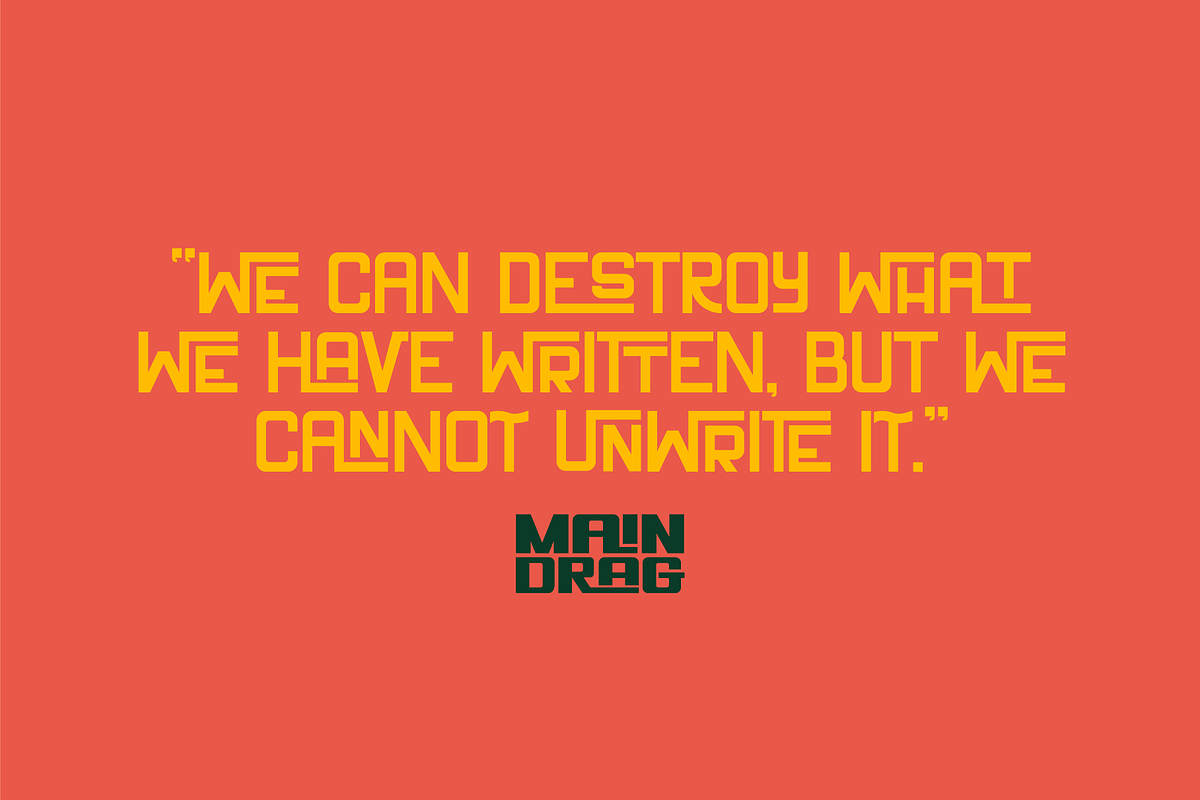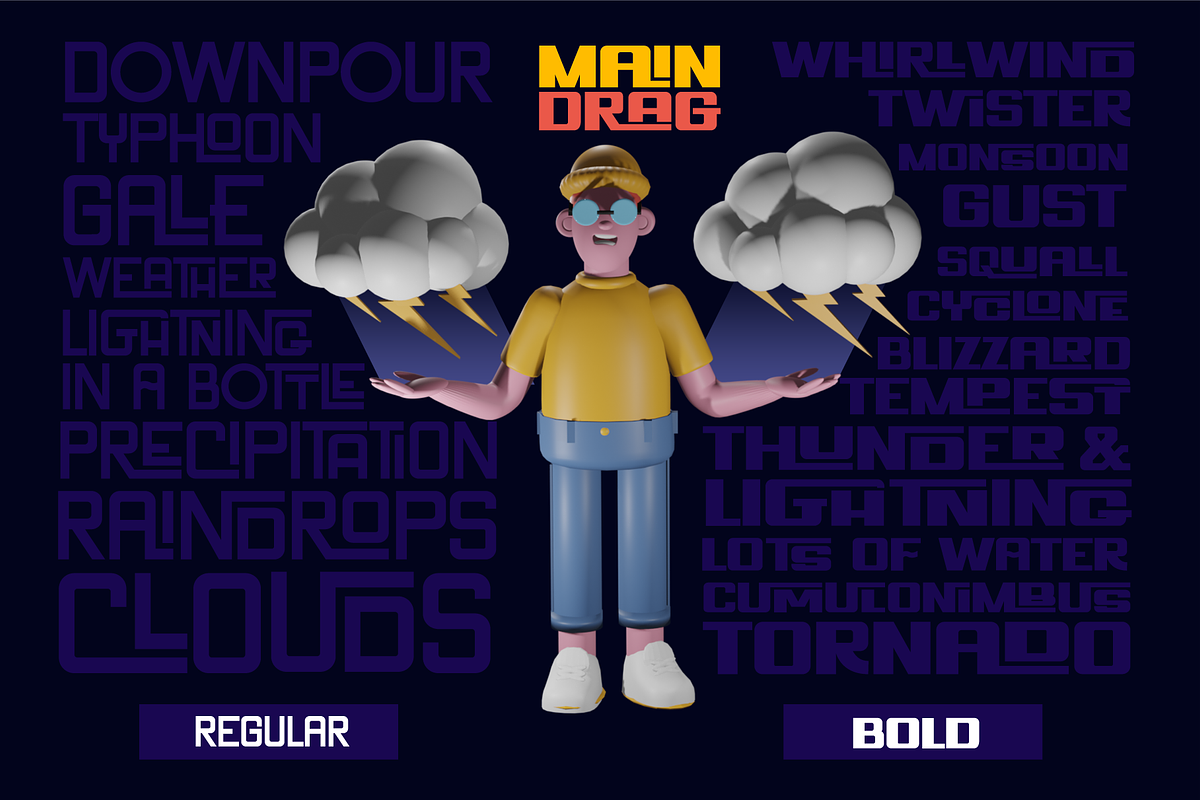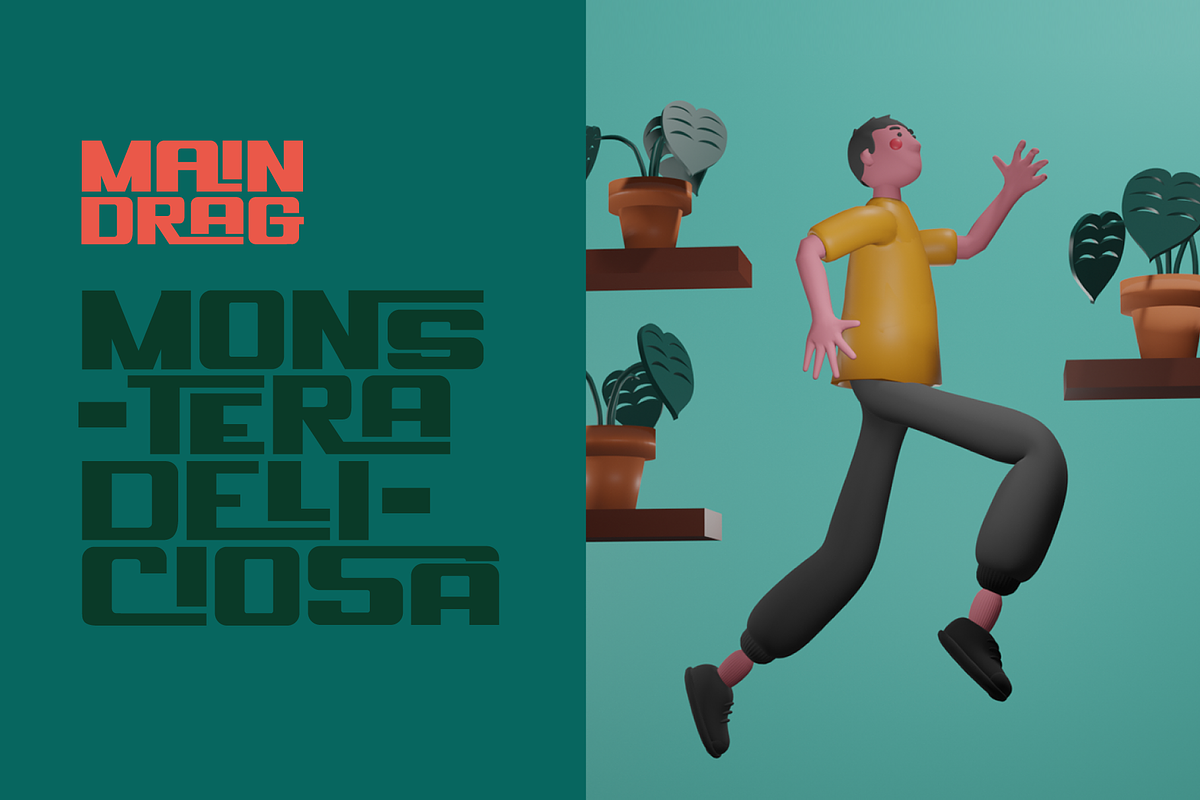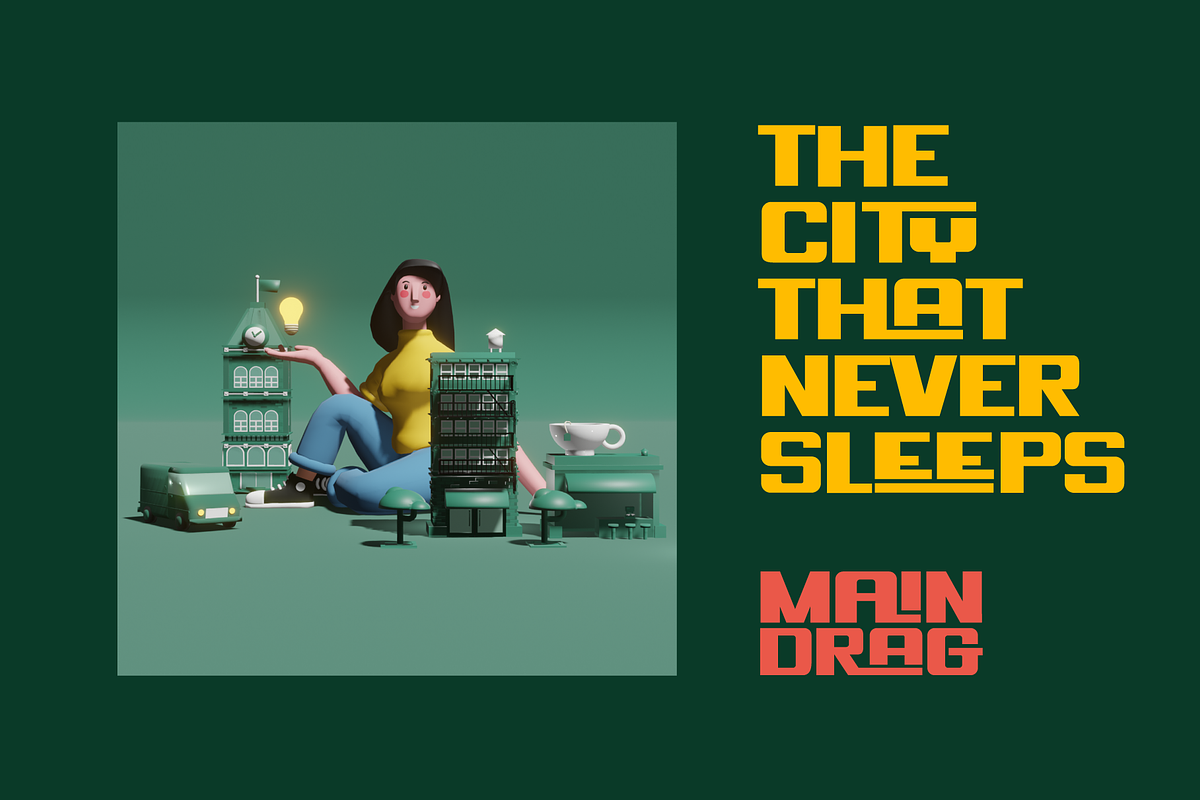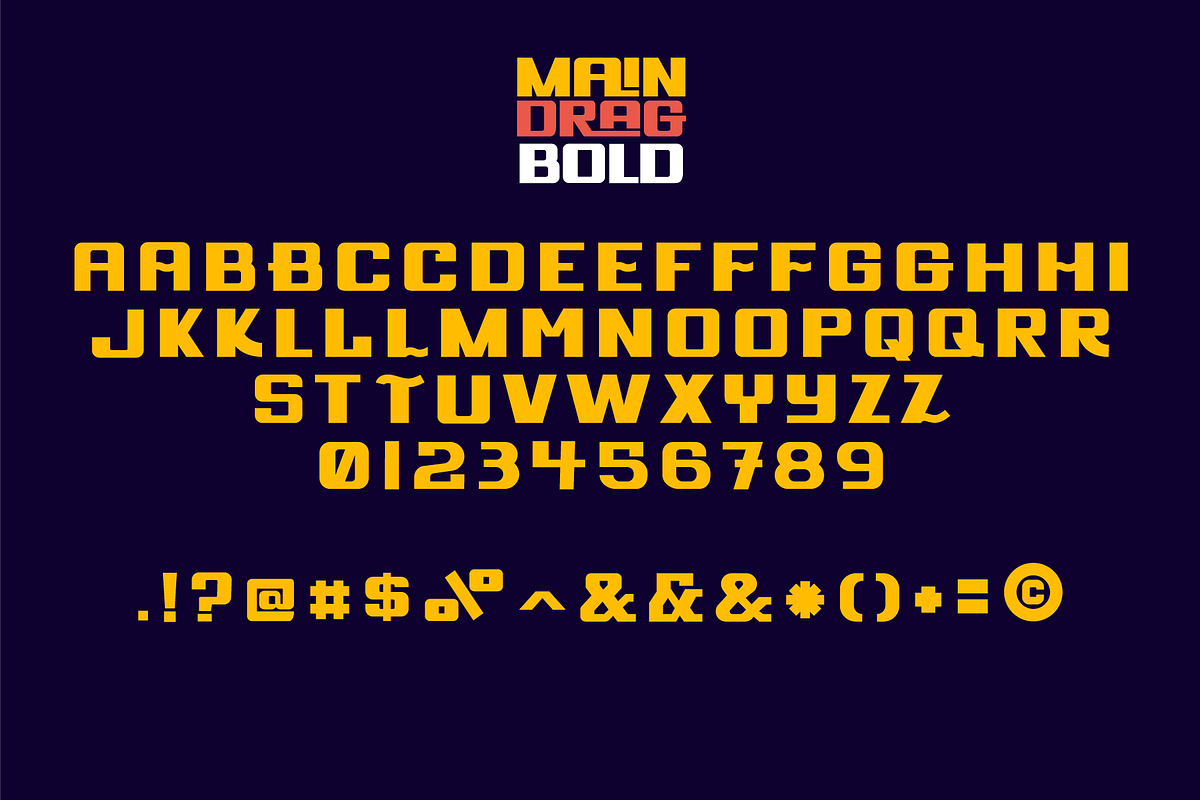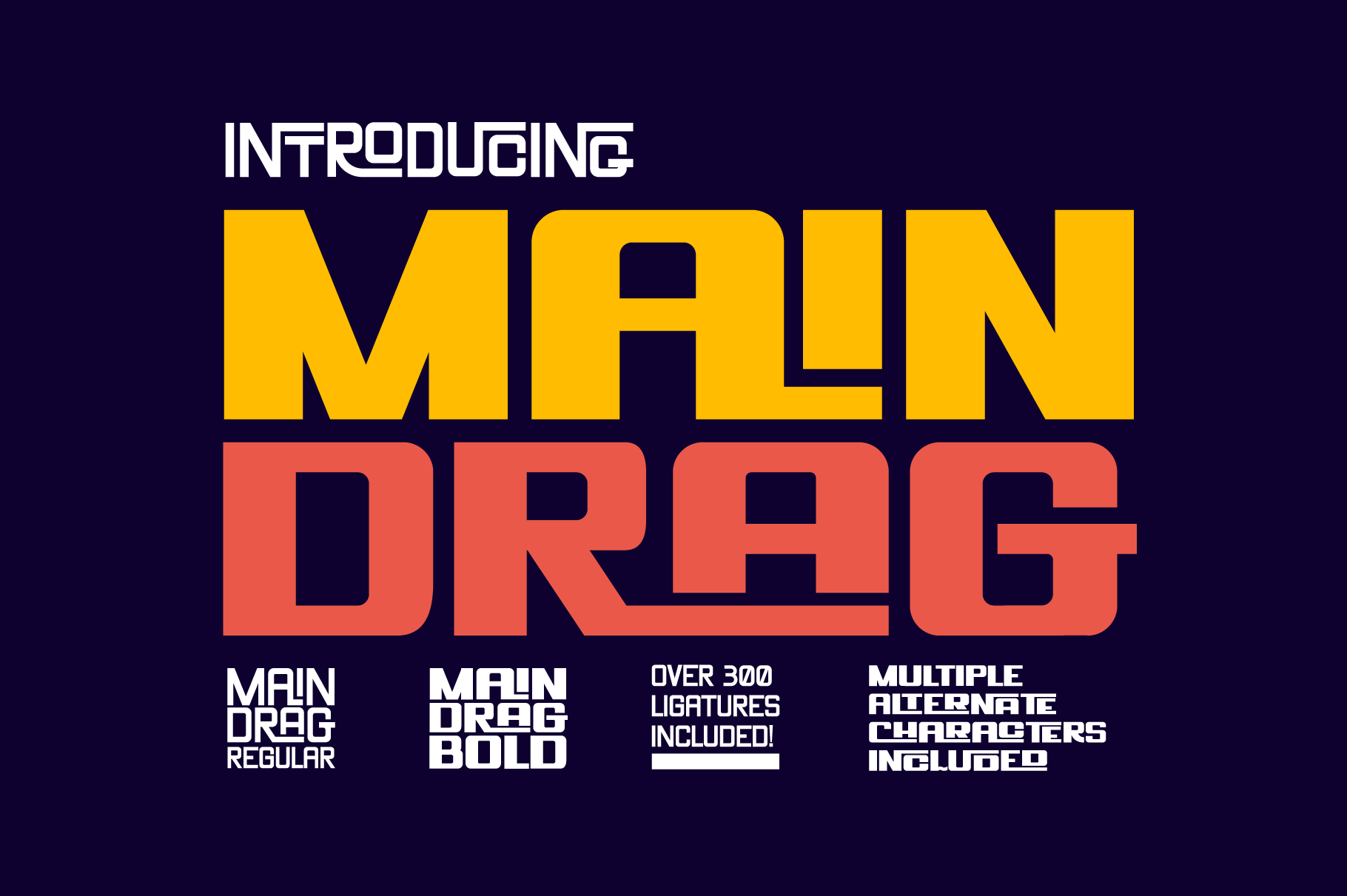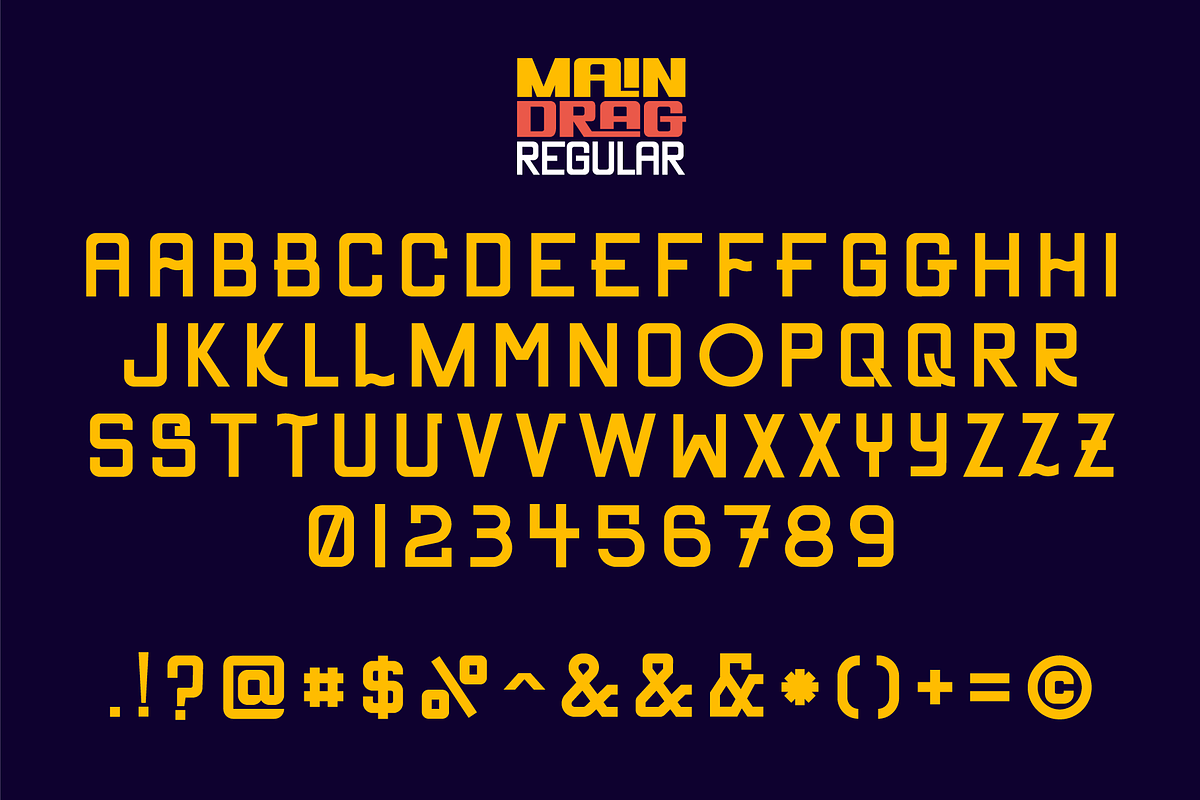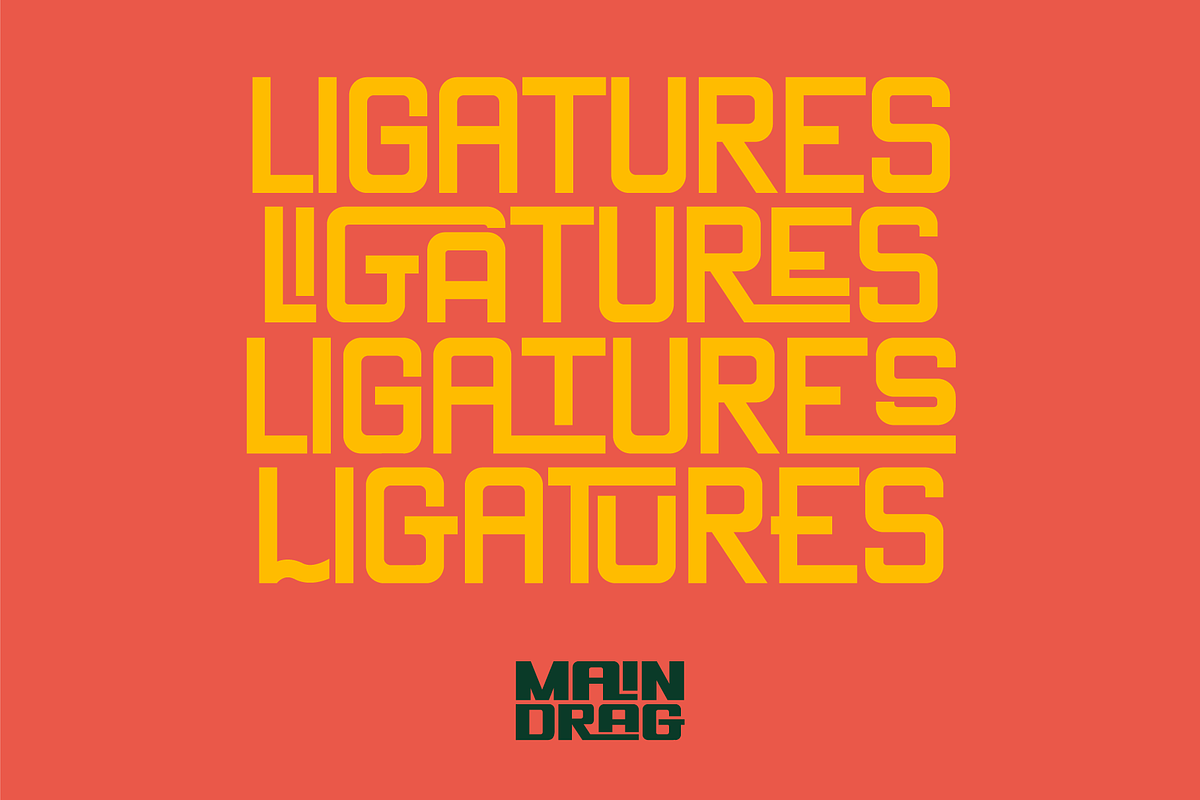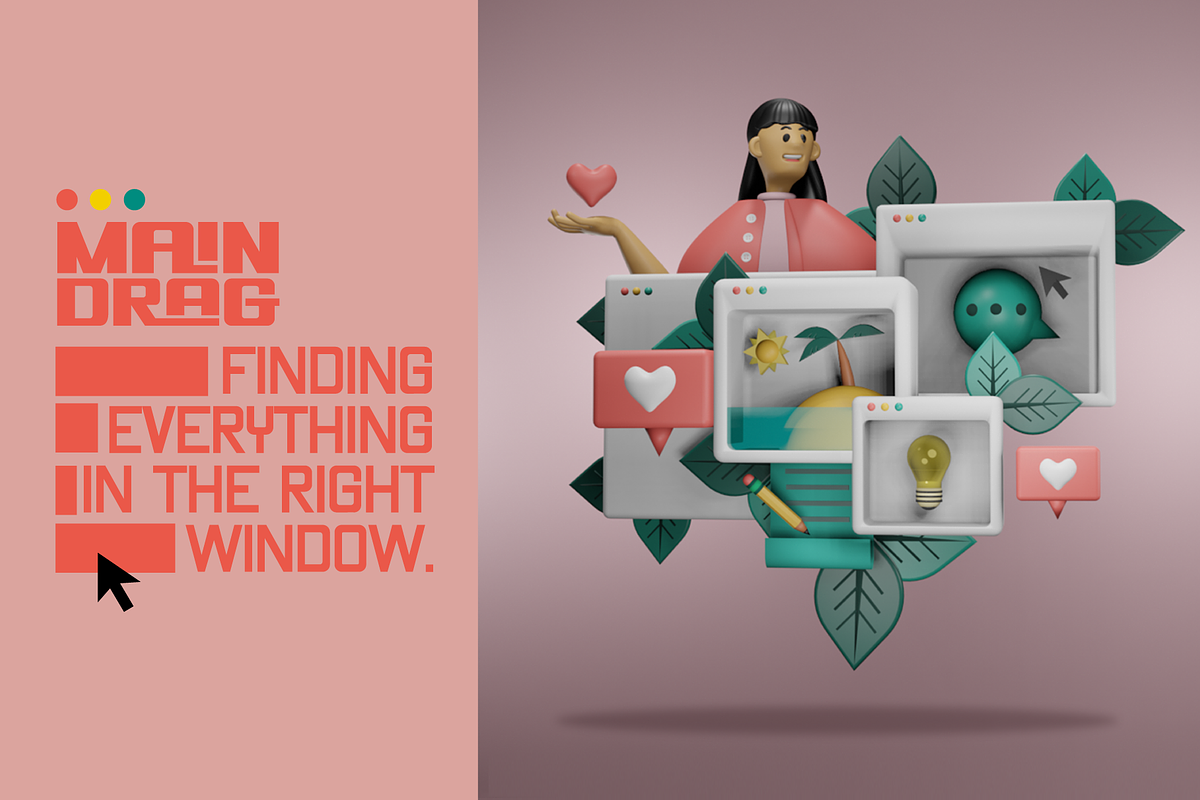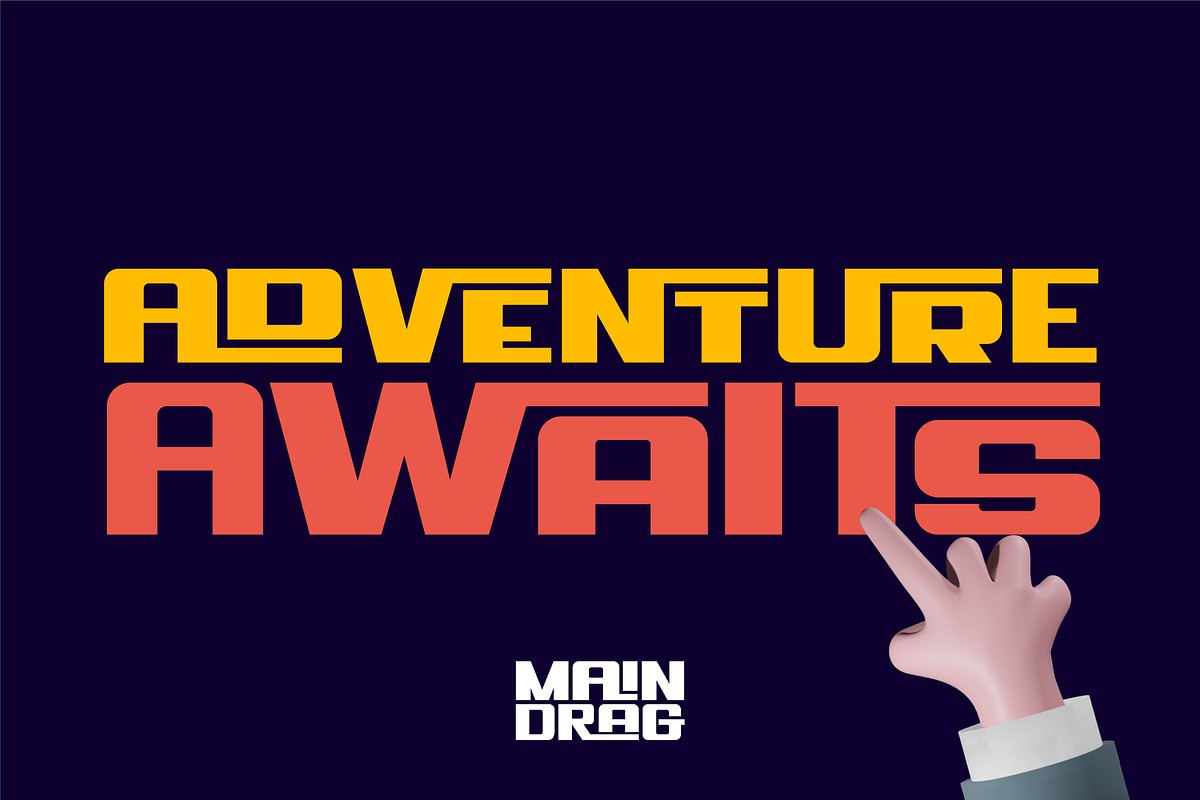
Main Drag Display Font
Main Drag is a retro all caps display font with over 300 unique ligatures available in regular and bold. Also included are multiple alternative characters. Main Drag features a full set of numerals, alphabet, and commonly used punctuation. Main Drag is perfect for branding projects and editorial design work. Thanks for looking!